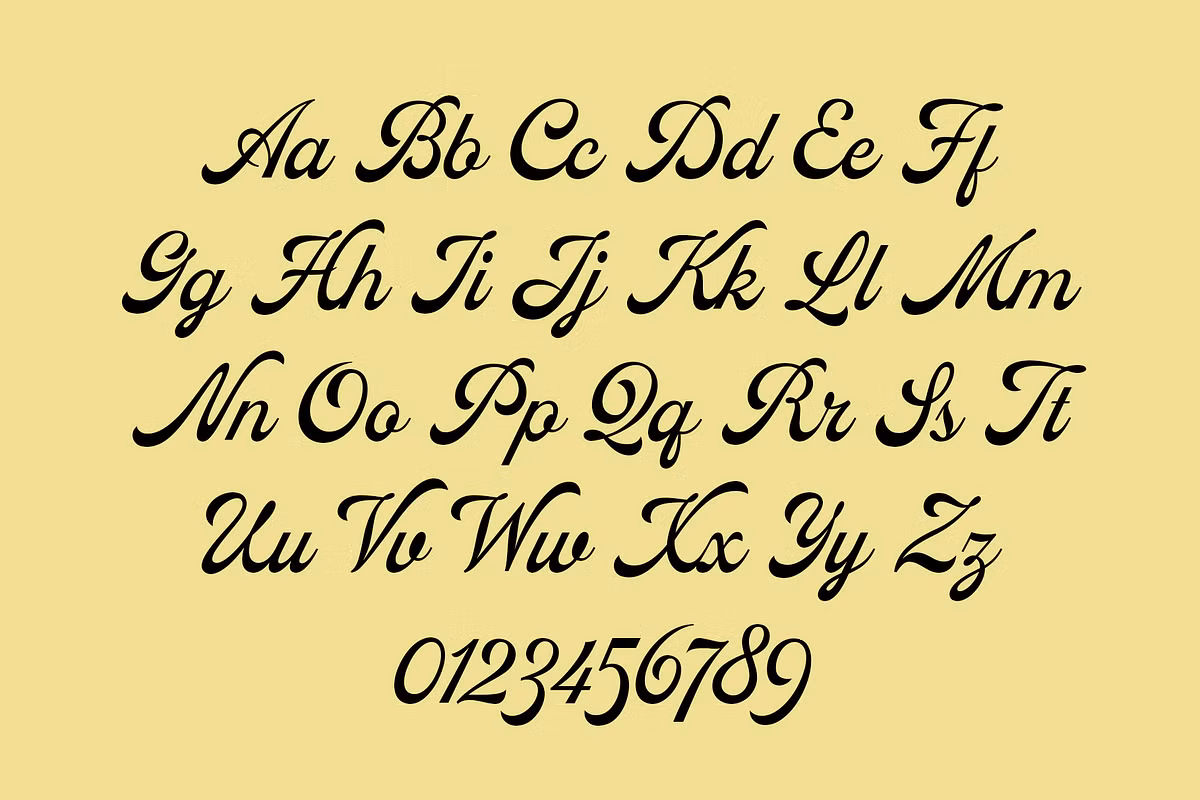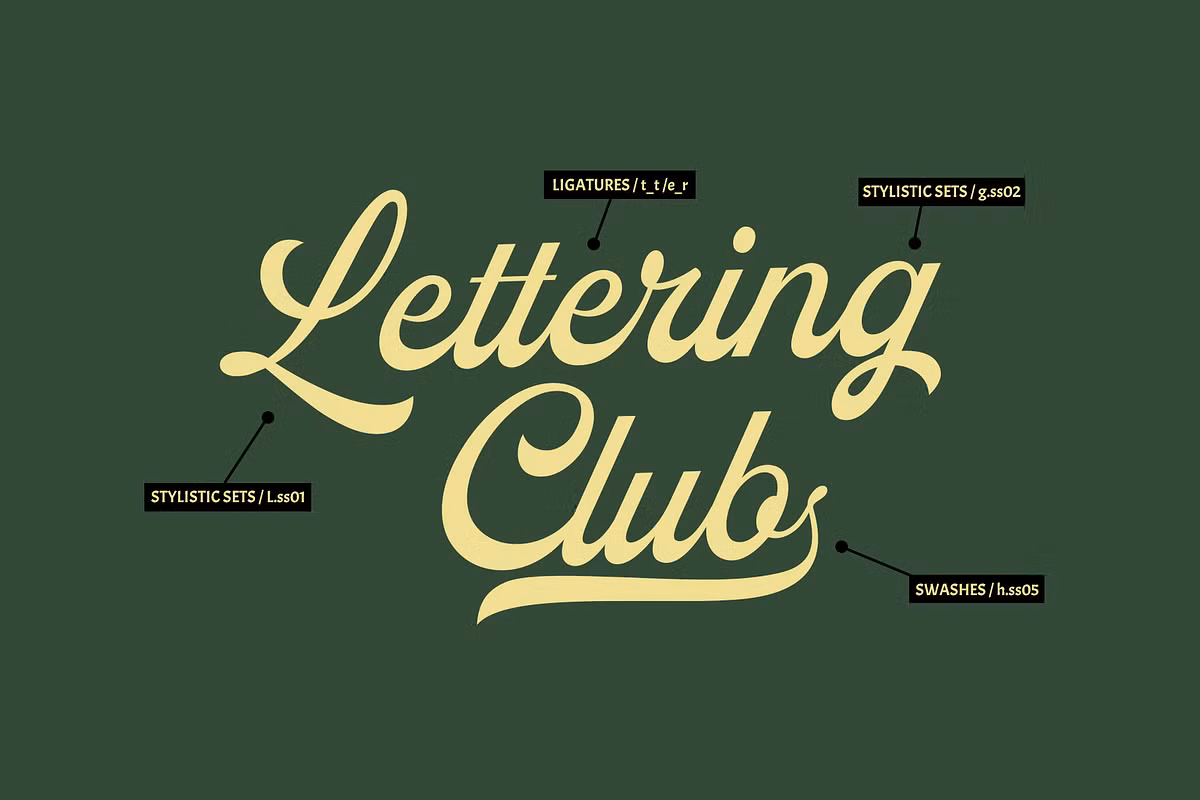
ED Forheim – Vintage Script: Classic Typography for Authentic Designs
ED Forheim is a classic script font that has a really old-school feel to it. It’s perfect for designers who want to add a touch of nostalgia and authenticity to their work. The font has beautiful, flowing curves and bold strokes that remind you of traditional sign painting and old-school typography. It’s a timeless font that can add a lot of elegance to any project. With its vintage-inspired look, Forheim is great for designers who want to create something that feels classic and sophisticated.
The font’s bold presence makes it perfect for making a statement, and its flowing curves add a touch of whimsy and fun. Overall, ED Forheim is a great choice for anyone looking to add a little bit of old-school charm to their designs.
The design style of Forheim is rooted in vintage aesthetics, making it a standout choice for various creative applications. Its letterforms are characterized by smooth connections and decorative flourishes that enhance visual interest while maintaining readability. The careful craftsmanship of this font allows it to balance elegance and strength, making it suitable for both modern and classic designs.
Forheim’s style is all about smooth curves and bold lines, which are inspired by traditional calligraphy. This font is more than just a way to display text – it captures the essence of handmade signs, allowing designers to add a touch of authenticity to their projects.
Character Sets
Forheim really stands out with its huge collection of characters – we’re talking 468 glyphs in total. This gives designers a lot of freedom to get creative. One of the best things about Forheim is that it includes over 80 stylistic sets, which means you can tailor your typography to fit your project perfectly.
This kind of flexibility is really powerful, as it lets you create one-of-a-kind lettering compositions that get your message across exactly how you want it to. Whether you’re working on a big project or just need to add some flair to your text, Forheim’s got you covered.
With so many options at your fingertips, you can experiment with different looks and feels until you find the one that’s just right.
Use Cases
ED Forheim is really versatile and can be used in many different areas of design. It’s great for a lot of things, but here are some of the most notable ways it can be used:
- Logos: Forheim’s classic style is perfect for creating logos that give off a warm, nostalgic feel.
- Branding: The font’s unique character can help establish a strong brand identity.
- Packaging: Forheim adds a touch of sophistication and character to product labels.
- Apparel: Its flowing nature makes it popular for stylish t-shirt designs.
- Editorial Designs: Forheim can enhance visual storytelling through its elegant design.
When you’re working with Forheim, it’s really important to pair it with fonts that complement it, so your design looks balanced and visually appealing. Here are a few suggestions for fonts that go well with Forheim:
- Sans-serif Fonts: Pair Forheim with a clean sans-serif font like Montserrat or Open Sans.
- Serif Fonts: For a more traditional look, consider pairing Forheim with a classic serif font.
- Display Fonts: For a bold and creative approach, use Forheim alongside display fonts.
- Handwritten Fonts: Combine Forheim with other script or handwritten fonts for a cohesive look.